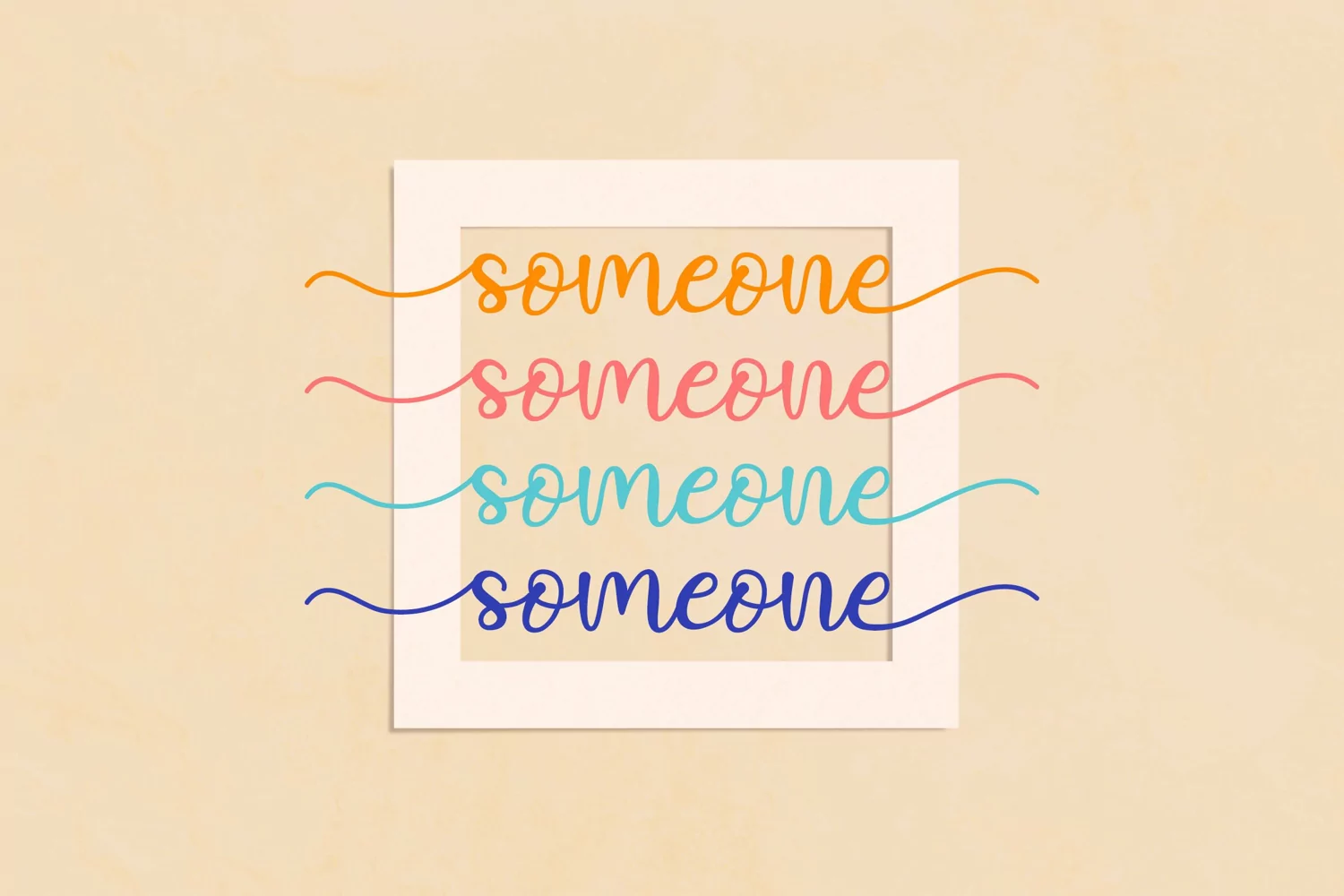
Collette Modern Script
Collette ia an organic calligraphy wih a clasic & stylish alternate, elegan type perfect for branding, project, logo ,wedding, card, social media post, advertisement,etc and any extraordinary projects.